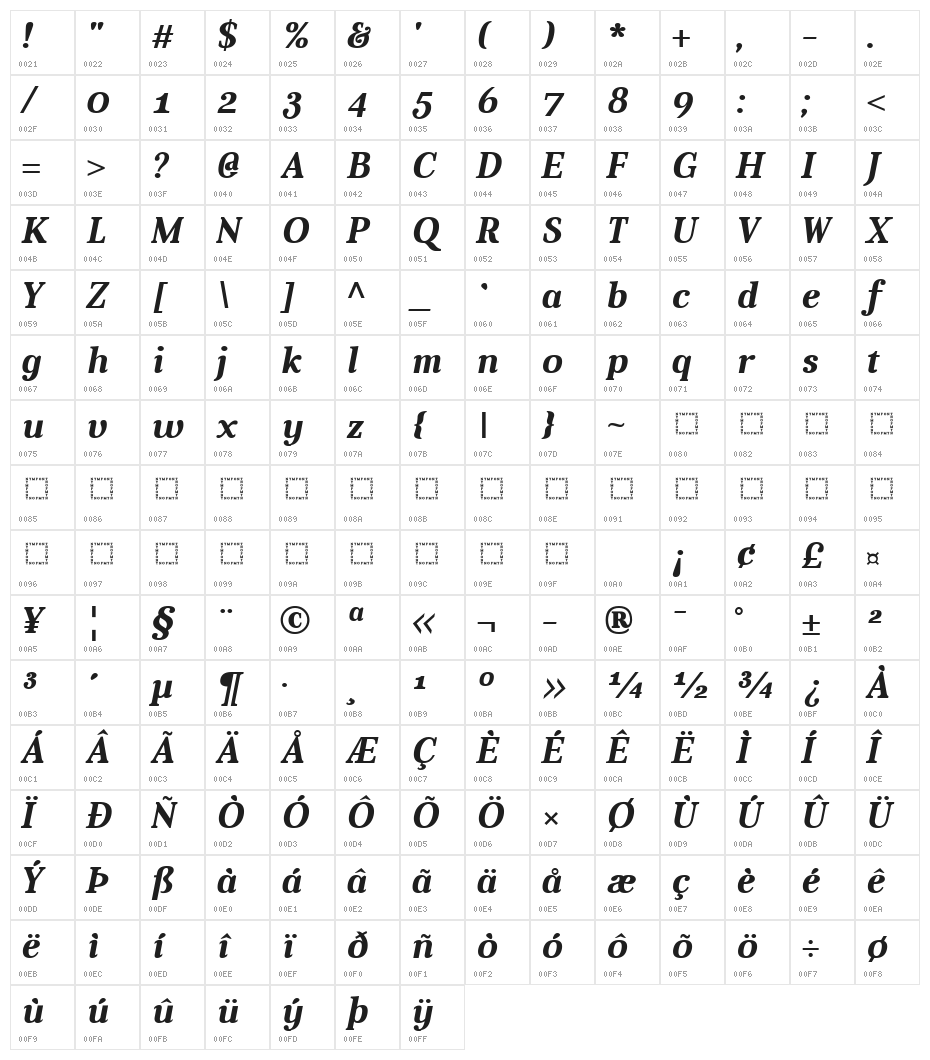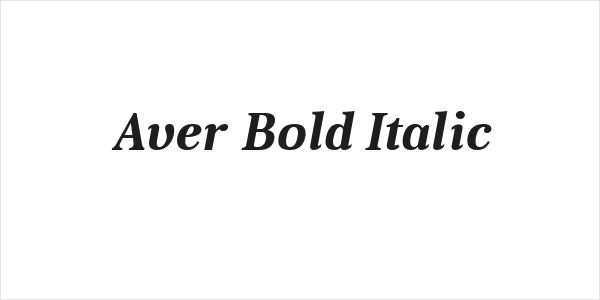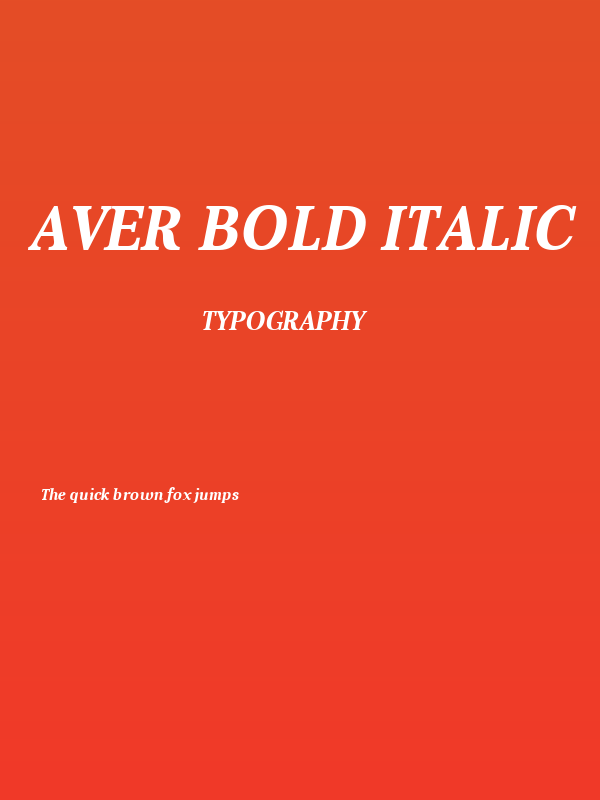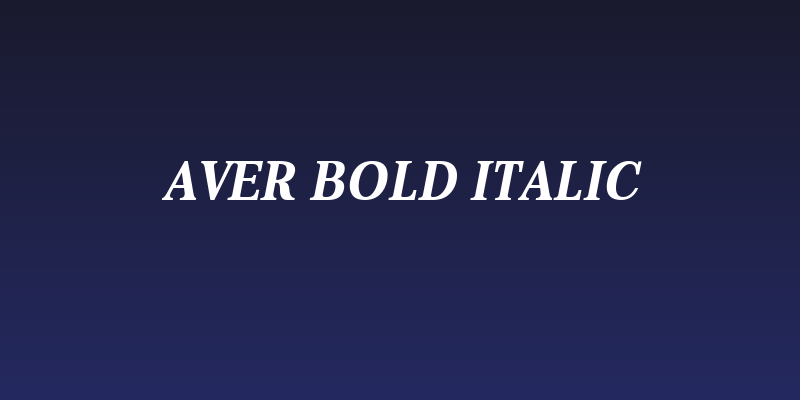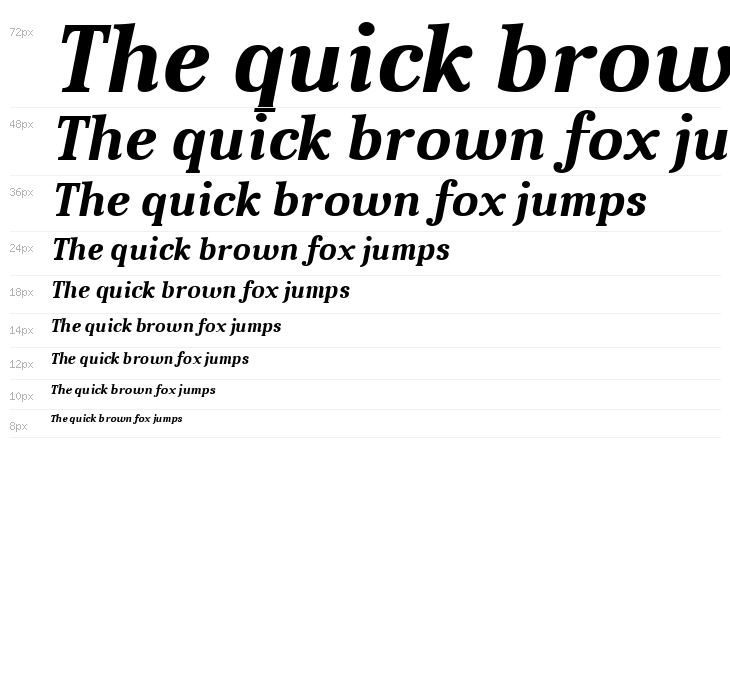
Aver Bold Italic Font
Aver Bold Italic Description
This font exhibits a bold and italicized style, characterized by its strong and assertive presence. The letters are slanted, adding a dynamic and forward-moving appearance. The strokes are thick and consistent, providing a sense of stability and confidence. The serifs are pronounced, enhancing the traditional yet modern look. The numerals and special characters maintain the same bold and italicized traits, ensuring uniformity across all glyphs. This font is well-suited for making a statement, with its clear readability and impactful design.
| Proposed Projects | Ideal for headlines, branding, posters, and any project requiring a bold statement. |